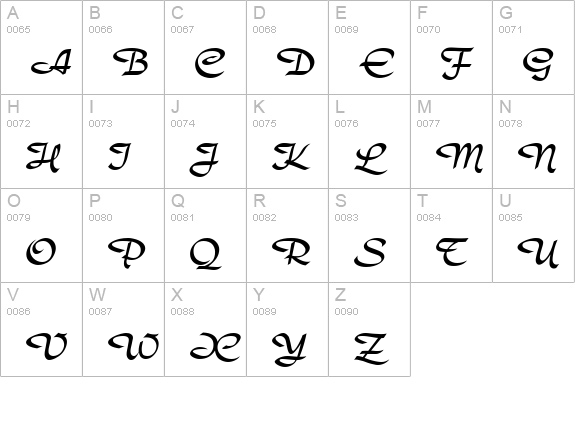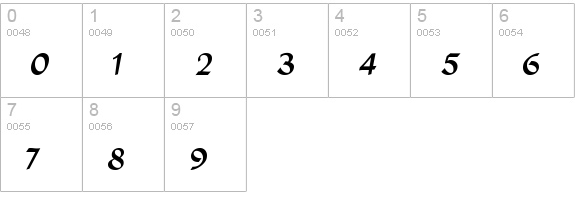
Rondo MN Font Details
Rondo MN is a sophisticated and versatile font that exudes elegance and charm. With its sleek lines and modern appeal, this font is perfect for a wide range of design projects. Whether you're creating branding materials, invitations, or web graphics, Rondo MN will add a touch of sophistication to your work. The best part? Rondo MN is available for free download at FontsMarket.com. This means you can enjoy the beauty and versatility of this font without spending a dime. So why wait? Download Rondo MN today and elevate your designs to the next level with this stunning typeface.